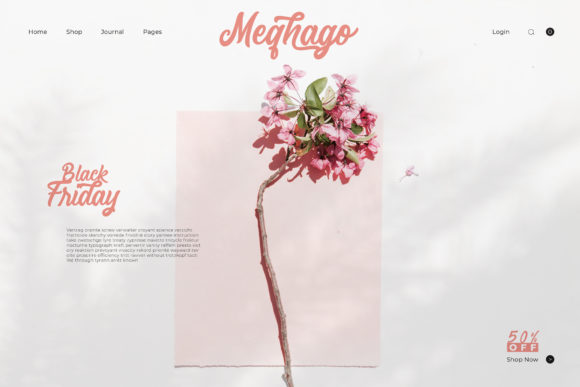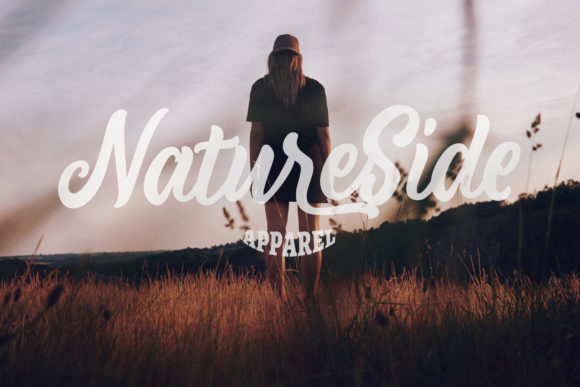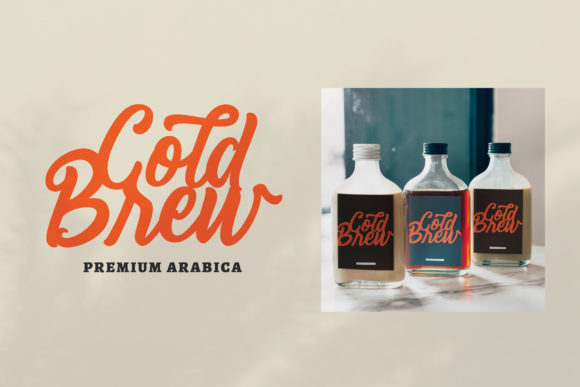
Introduction to Meqhago Font
Meqhago is a stylish brushed handwritten font.
Its distinct and flowing characters make this font a masterpiece Fall in love with its incredibly versatile style and use it to create spectacular designs.
Key Features of Meqhago Font
Why Choose Meqhago Font?
Meqhago Font offers exceptional quality and versatility, making it a valuable addition to your design toolkit. Whether you’re creating for personal projects or commercial use, Meqhago Font delivers professional results.